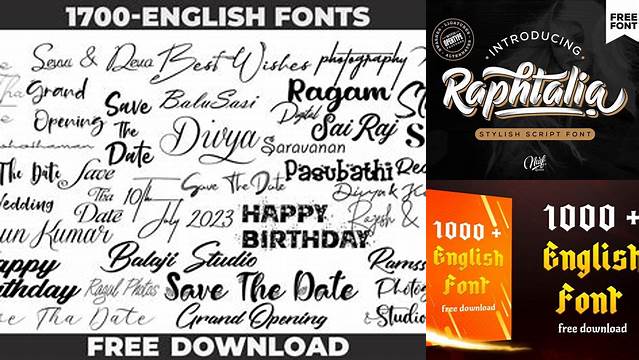
Download New English Fonts For Free: Top Picks & Tips
Hey guys! Looking to spice up your designs or documents with some fresh, stylish fonts? You've come to the right place! In this article, we're diving deep into the world of new English fonts that you can download for free. We'll explore various font styles, where to find them, and how to use them effectively in your projects. So, buckle up and get ready to discover some amazing typographic treasures!
Why New Fonts Matter
Fonts are more than just letters; they are the voice of your text. The right font can convey the mood, tone, and personality of your message. Think about it: a playful, rounded font gives off a completely different vibe than a sharp, sans-serif typeface. Using new and unique fonts can help your content stand out, grab attention, and leave a lasting impression. Plus, keeping your font library updated ensures your designs stay fresh and relevant. In today's visually driven world, having a diverse collection of fonts is crucial for anyone involved in content creation, whether you're a graphic designer, marketer, blogger, or student. Imagine trying to design a poster for a rock concert using Times New Roman – it just wouldn't work, right? That's why exploring new English fonts free download options is so important. With the right font, you can perfectly capture the essence of your project and connect with your audience on a deeper level. Whether you're working on a website, a presentation, or even a simple social media post, the font you choose can make all the difference. So, don't underestimate the power of typography – it's a key element in effective communication and design. And the best part? There are tons of amazing fonts available for free, just waiting to be discovered. So, let's dive in and find the perfect fonts to elevate your next project!
Popular Font Styles
Understanding different font styles is crucial when selecting the right typeface for your project. Each style conveys a unique feeling and works best in certain contexts. Let's explore some of the most popular font styles:
Serif Fonts: These fonts have small decorative strokes (serifs) at the end of each letter. They are often used for traditional and formal designs. Examples include Times New Roman, Georgia, and Garamond. Serif fonts are typically used to project a sense of history, authority, and trustworthiness. They are often found in books, newspapers, and official documents. The serifs themselves help guide the reader's eye along the lines of text, making them especially well-suited for long-form reading.
Sans-Serif Fonts: Sans-serif fonts lack the decorative strokes found in serif fonts. They have a clean, modern look and are often used for digital designs. Examples include Arial, Helvetica, and Open Sans. Sans-serif fonts are generally perceived as being more contemporary, minimalist, and approachable. They work exceptionally well on screens, as their clean lines make them easy to read even at smaller sizes. This makes them a popular choice for websites, mobile apps, and user interfaces. Many tech companies also opt for sans-serif fonts in their branding to convey a sense of innovation and simplicity.
Script Fonts: These fonts resemble handwriting and are often used for elegant and creative designs. Examples include Brush Script, Pacifico, and Lobster. Script fonts add a touch of personality, charm, and elegance to any project. They are often used for invitations, greeting cards, logos, and headings. However, they should be used sparingly, as they can be difficult to read in large blocks of text. When choosing a script font, consider the overall tone and style you want to convey. A flowing, cursive script can evoke a sense of romance and sophistication, while a more casual, handwritten script can feel more playful and approachable.
Display Fonts: These fonts are designed to be eye-catching and are often used for headlines and titles. They come in a wide variety of styles, from bold and futuristic to vintage and quirky. Display fonts are all about making a statement. They are designed to grab attention and set the tone for your design. Because of their unique and often elaborate designs, they are best used for short bursts of text, such as headlines, titles, and logos. When choosing a display font, consider the overall message you want to convey and how it complements the rest of your design. A bold, geometric display font can project a sense of strength and modernity, while a vintage-inspired display font can evoke nostalgia and charm.
By understanding these different font styles, you can make informed decisions about which fonts to use in your projects, ensuring that your typography effectively communicates your message and enhances your overall design.